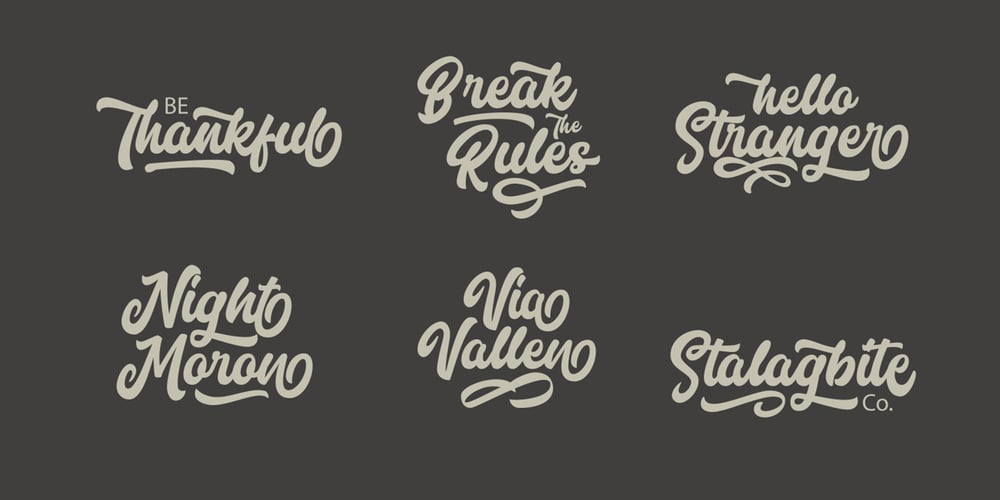
Marttabuck Font Family was designed by published by Letterhend. Marttabuck contains 2 styles and family package options. Marttabuck Script – The bold and straight-forward look script. This script comes with two types, the regular and special. The special type has its unique tiny slices which gives more personal touch and makes the font looks being customized. This font is suitable to use as a logotype, apparel, wedding invitation, signboard, sport club, motor / car, etc. This font has many opentype features like ligature, stylistic alternate, contextual alternate, swash, etc and support multi language.